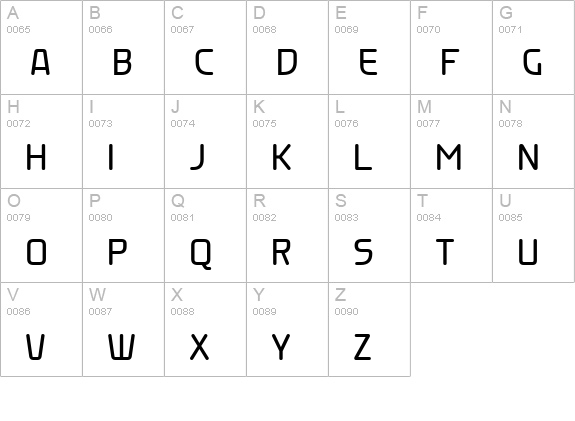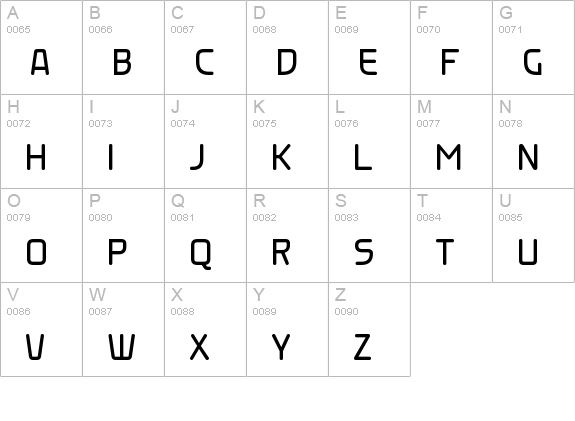
Introducing Xenara font, a stylish and modern typeface that is sure to make your designs stand out. With its elegant curves and clean lines, Xenara brings a touch of sophistication to any project. This versatile font is perfect for a wide range of design applications, from branding to editorial design. What's even better is that Xenara font is completely free to download at FontsMarket.com. That's right, you can add this beautiful font to your collection without spending a dime. So why wait? Elevate your designs with Xenara font today and let your creativity shine!